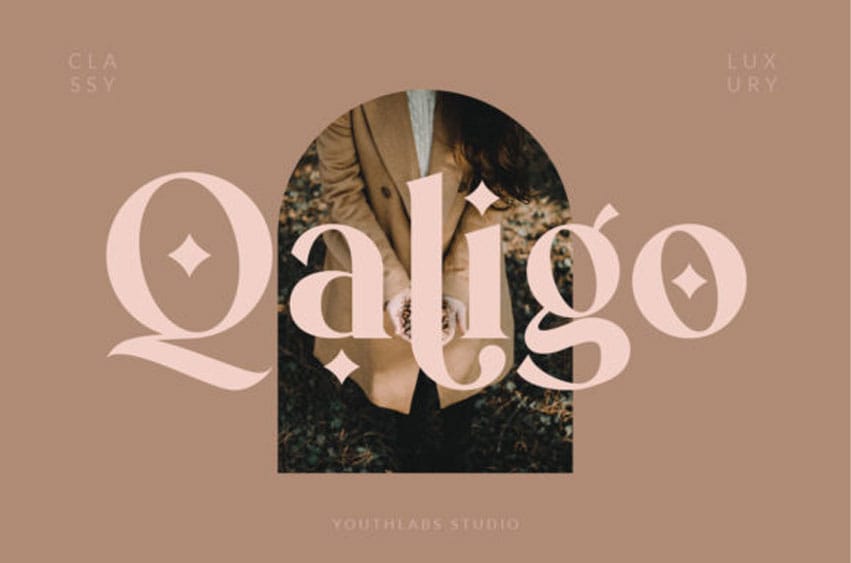
Qaligo Font is a bold and elegant serif font.
No matter the topic, this font will be an incredible asset to your font library, as it has the potential to elevate any creation.